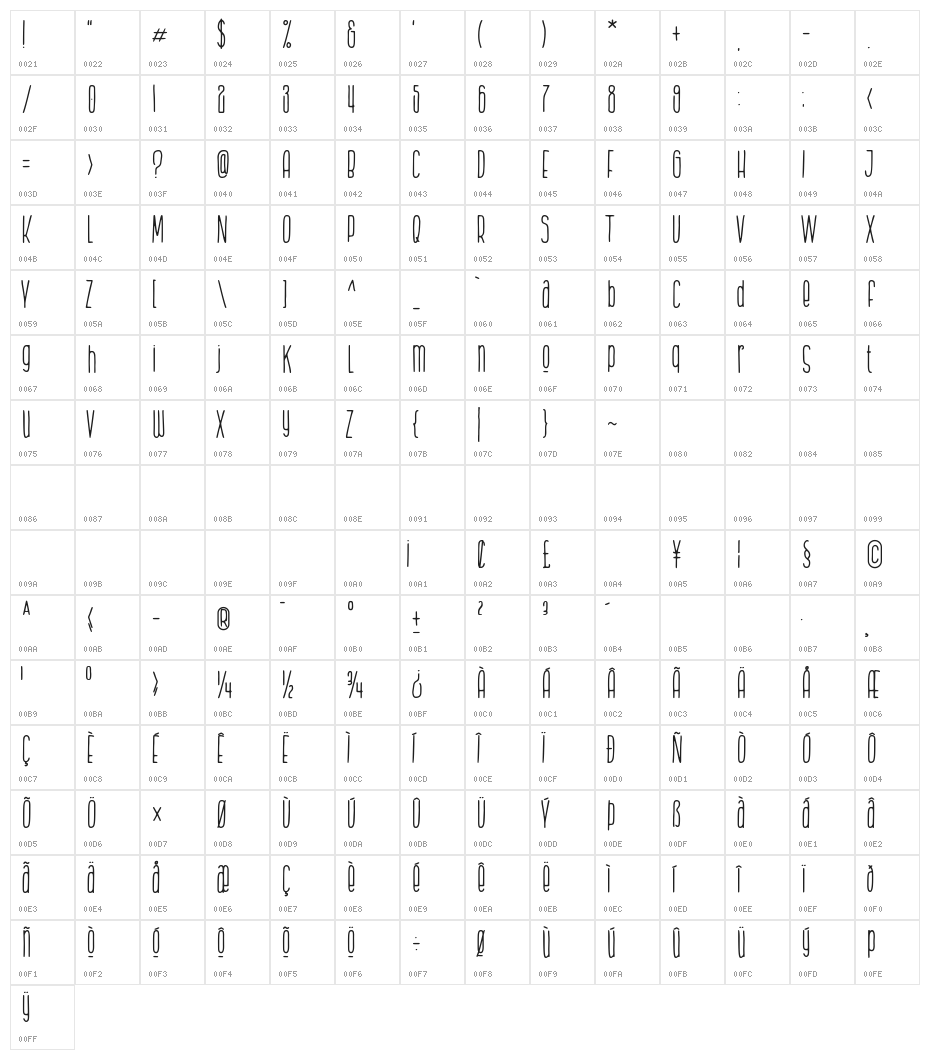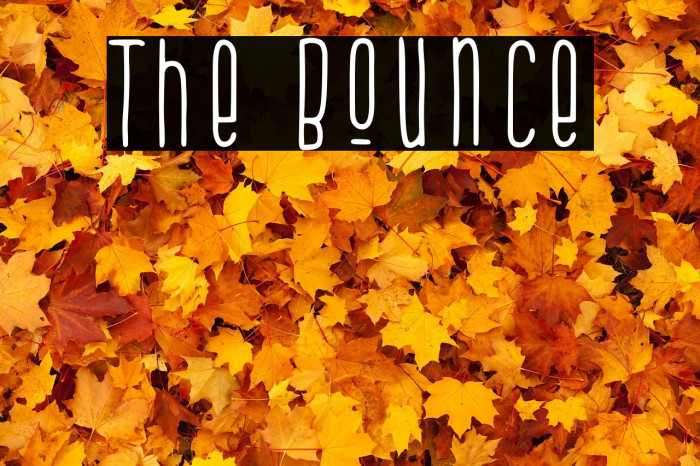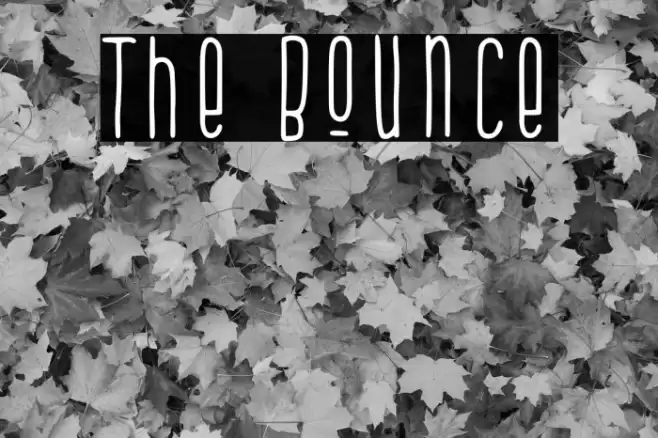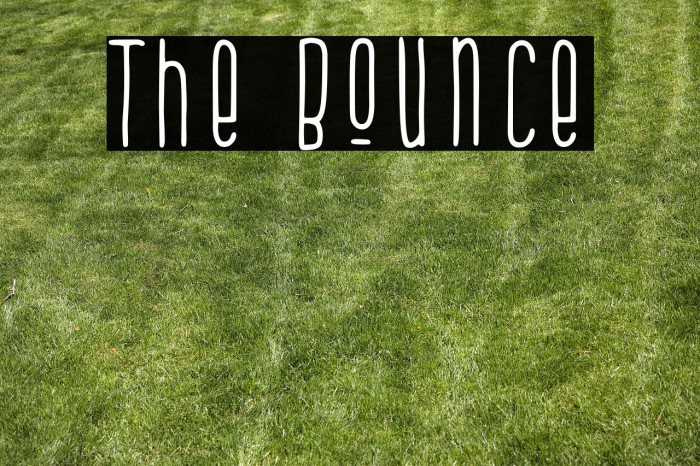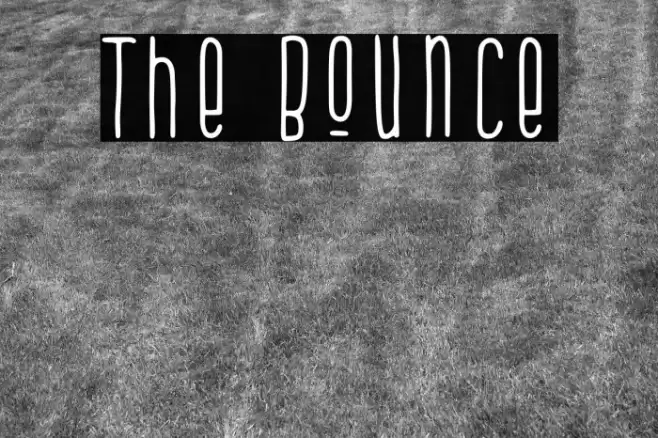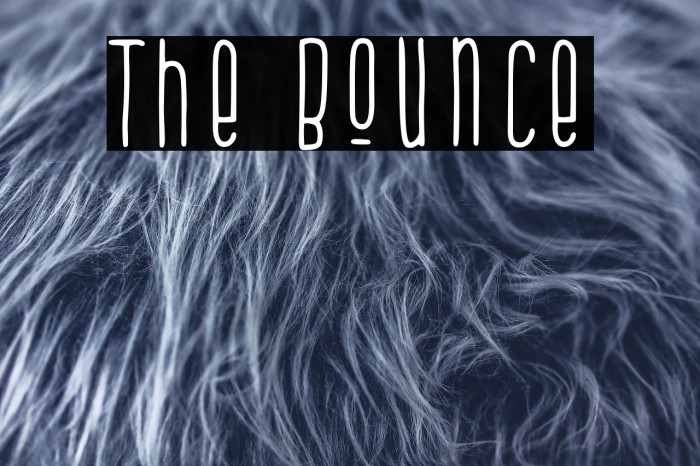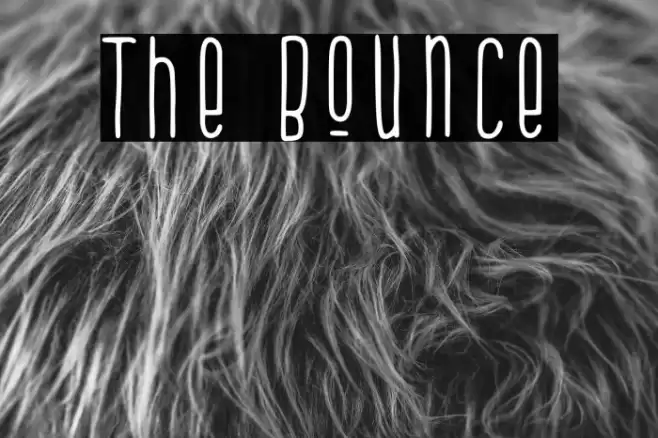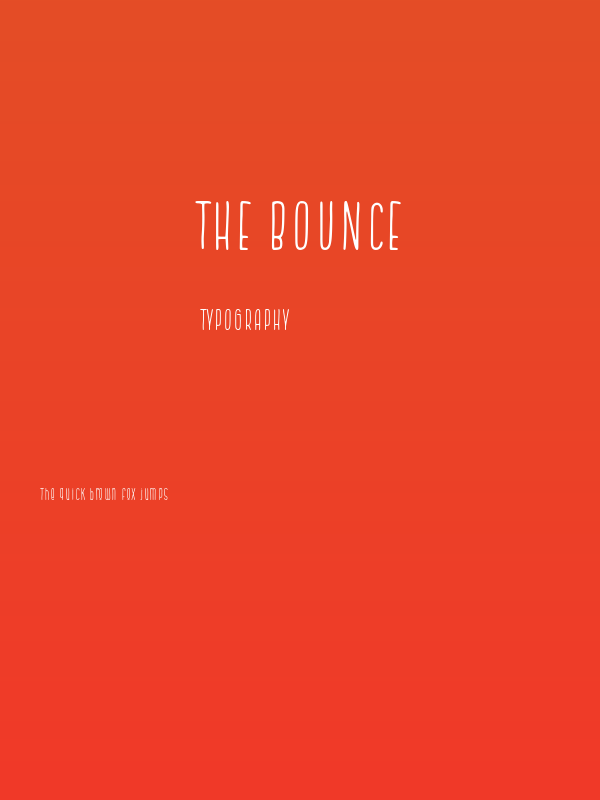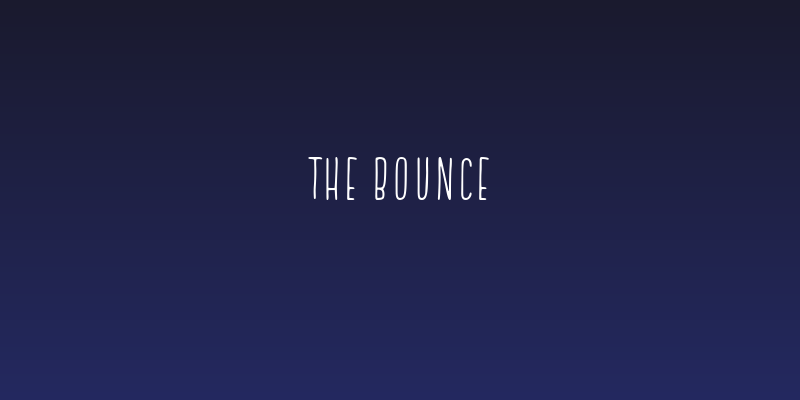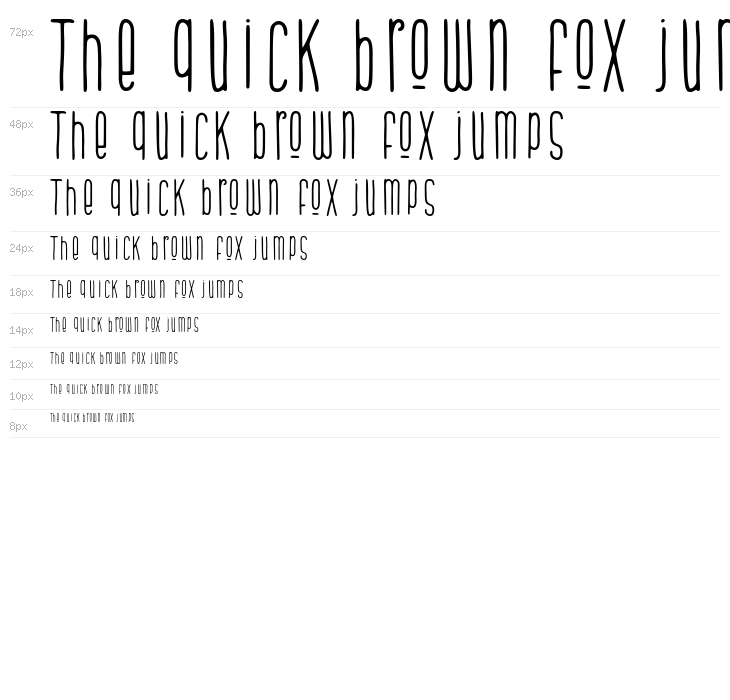
The Bounce Font
The Bounce Description
This font features a playful and elongated design with a hand-drawn aesthetic. The characters are tall and narrow, giving a sense of height and elegance. The strokes are consistent in width, providing a uniform appearance across all letters and numbers. The font includes both uppercase and lowercase letters, numerals, and a variety of special characters. Its whimsical style makes it suitable for creative and informal projects. The overall look is clean yet quirky, perfect for adding a touch of personality to any design.
| Proposed Projects | Ideal for children's book covers, playful branding, greeting cards, and creative posters. |